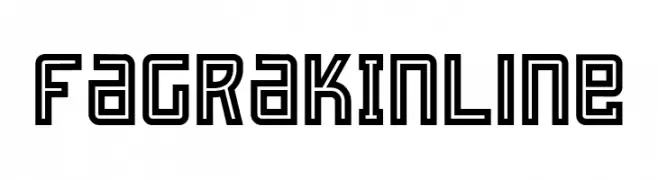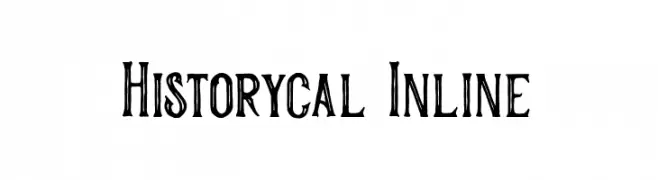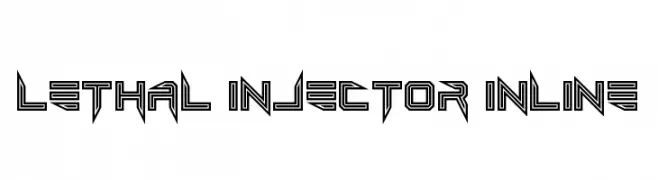
A bold, geometric sans-serif font with an inline design and modern aesthetic.
A bold, playful script font with a dynamic inline design.
Bold, inline, all caps, italicized font with a modern style.
A bold, gothic-style font with sharp, angular lines and an inline design.
A bold, geometric font with a distinctive inline style, perfect for modern designs.
A vintage-style, inline font with a bold, hand-drawn appearance.
A modern inline font with geometric, outlined characters.
A playful, festive font with bold, rounded characters and decorative inline elements.
A bold, futuristic font with sharp, angular lines and an inline style.
A bold, decorative font with an inline style, perfect for standout designs.